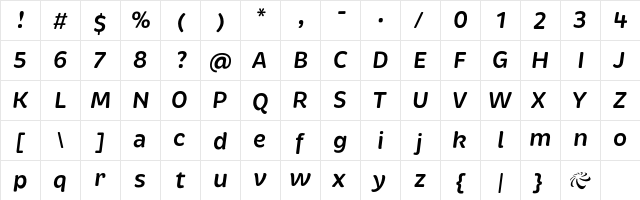
Brevia SemiboldItalic Regular
Design Context for Brevia SemiboldItalic Typeface
Brevia SemiboldItalic is a composed and adaptable typeface that performs quietly and consistently across a wide range of design contexts. Its italic angle brings a sense of urgency and motion to the letterforms. Its bold stroke weight gives it real presence on the page.
Pro Tip: Use Brevia SemiboldItalic for emphasis, pull quotes, and subheadings where its slanted energy can add rhythm to the layout.